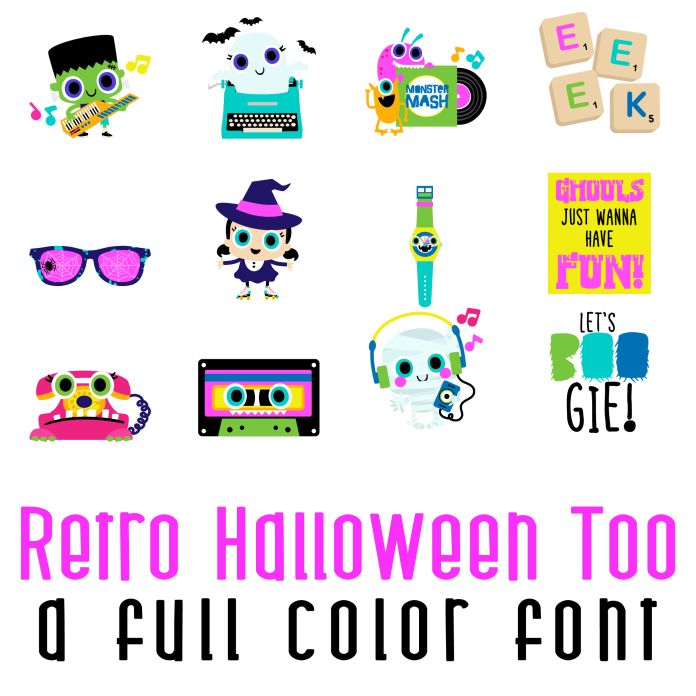
This fun full color font features 26 adorable monsters living in the retro past, with items from the 80s and 90s. Perfect for Halloween, cards, crafts, parties, gifts, decor, planner stickers, classrooms, scrapbook pages and more!